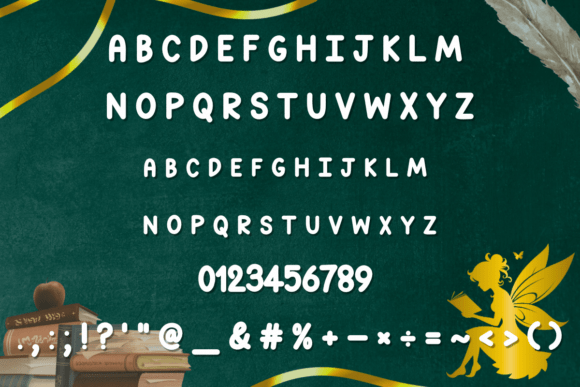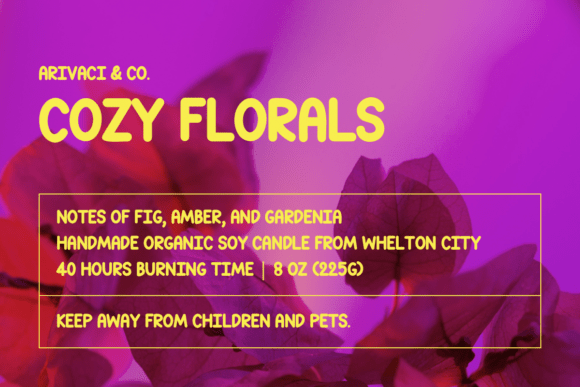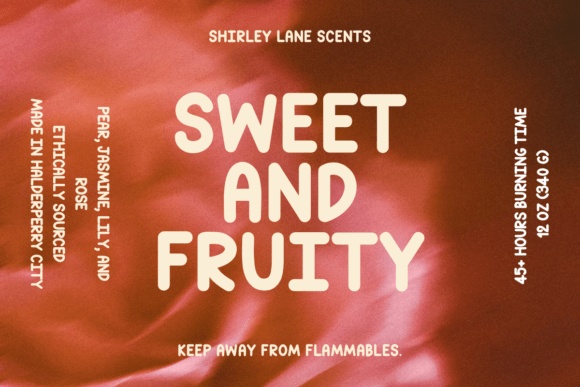
Introduction to Fancy Book Font
Fancy Book is a sans serif font.
You can use it for taking notes, writing a diary or making greeting cards However you can still use it for other designs such as banners content mugs cards shirts stationery social media posts and more.
Fancy Book Font offers exceptional quality and versatility, making it a valuable addition to your design toolkit. Whether you’re creating for personal projects or commercial use, Fancy Book Font delivers professional results.